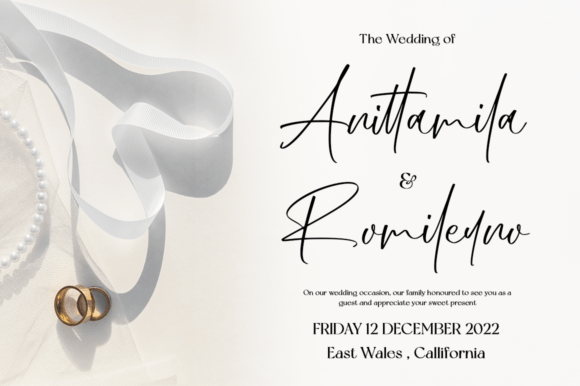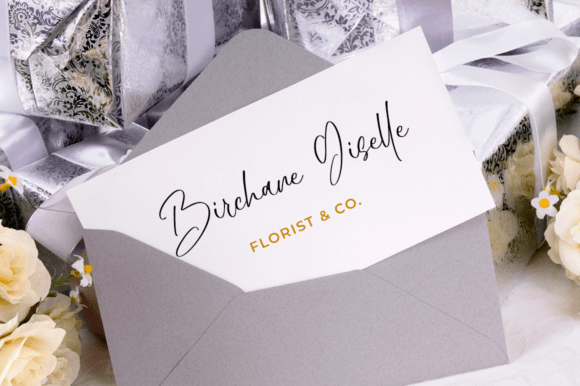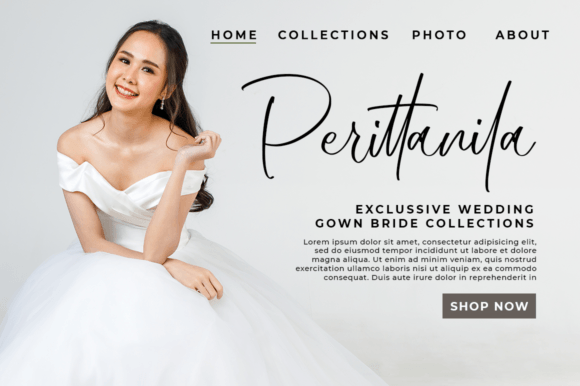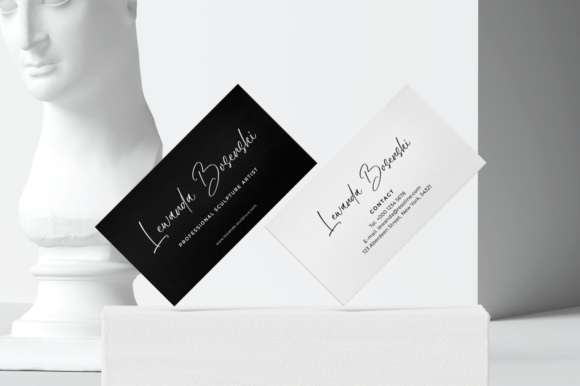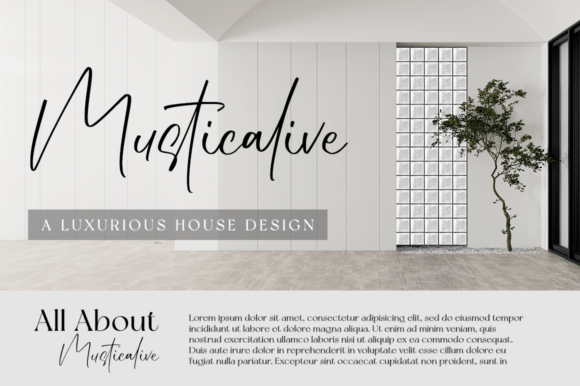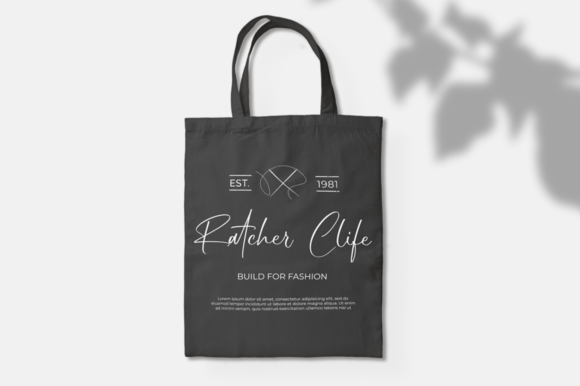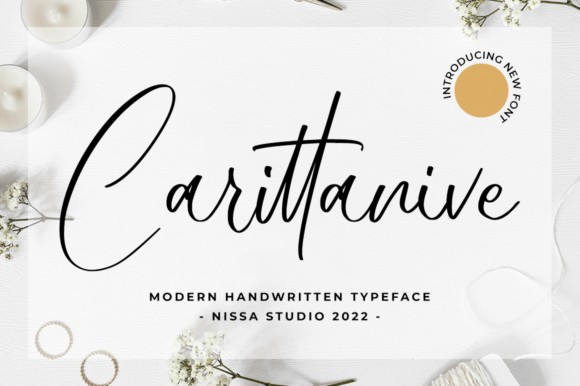
The Carittanive Font: A Modern Handwritten Marvel
I’ll never forget the design struggle I faced while working on a romantic greeting card project. I had the perfect concept, the ideal color palette, and a clear vision, but something was missing – the right font. I scoured the internet, tried countless fonts, but none seemed to capture the essence of love and elegance I was looking for. That was until I stumbled upon the stunning Carittanive Font. ✨
As a designer, I’m always on the lookout for fonts that can elevate my projects. Here’s my honest review of the Carittanive Font:
- ✨ Modern and elegant: Carittanive is a beautifully crafted handwritten font that exudes romance and sophistication.
- ✅ Versatile: This font is perfect for a wide range of applications, from greeting cards to headlines, and even social media graphics.
- 🔥 PUA encoded: The font’s PUA encoding makes it easy to access all the beautiful glyphs and swashes, giving you endless creative possibilities.
While the Carittanive Font is amazing, there are a few minor things to keep in mind:
- ⚠️ Some characters may require manual kerning: As with any font, you may need to adjust the kerning of certain characters to achieve the perfect look.
- 🤔 Not ideal for body text: Due to its elegant and cursive nature, Carittanive is best suited for headlines, titles, and short paragraphs.
The Designer Inspiration Behind Carittanive
While the true story behind Carittanive’s creation remains a mystery, it’s easy to imagine that the designer was inspired by the romance and elegance of handwritten scripts. Perhaps they wanted to create a font that would make designers and crafters feel like they were adding a personal touch to their projects. Whatever the inspiration, Carittanive is a beautiful addition to the world of typography.
Q: What is the Carittanive Font best used for?
A: The Carittanive Font is perfect for a wide range of applications, including greeting cards, headlines, social media graphics, and more.
Q: Is the Carittanive Font PUA encoded?
A: Yes, the Carittanive Font is PUA encoded, making it easy to access all the beautiful glyphs and swashes.
Q: How do I access the glyphs and swashes in the Carittanive Font?
A: You can access the glyphs and swashes in the Carittanive Font using the font’s OpenType features, glyphs, or stylistic alternates, depending on the design platform you’re using.